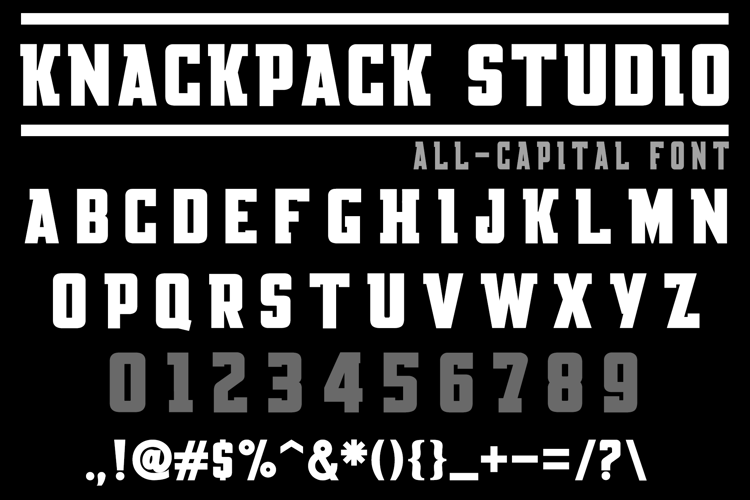
Knackpack Std Reg DEMO Font
KNACKPACK STD REG
- Clean bold inspired font perfect on your school projects, covers, etc.
- Lifestyle modern sports theme font for branding, website, mobile app etc.